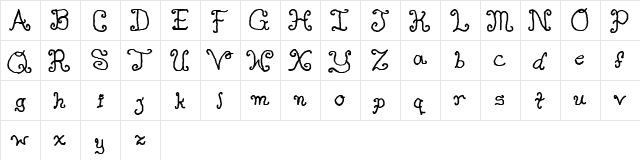
Single Gyrl Regular
Design Context for Single Gyrl Typeface
Single Gyrl is a composed and adaptable typeface that performs quietly and consistently across a wide range of design contexts.